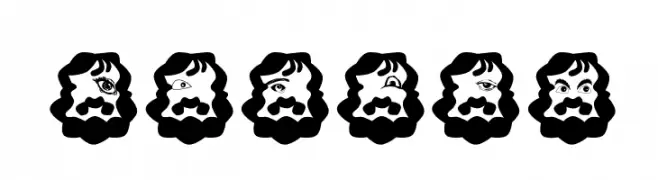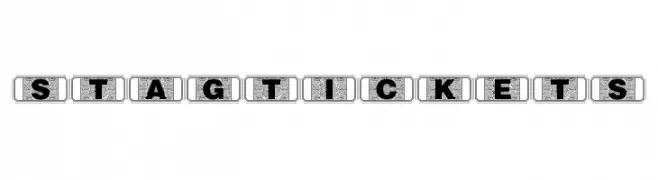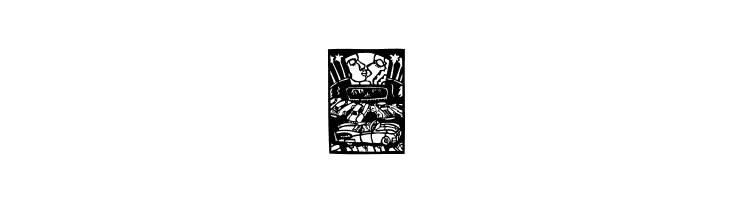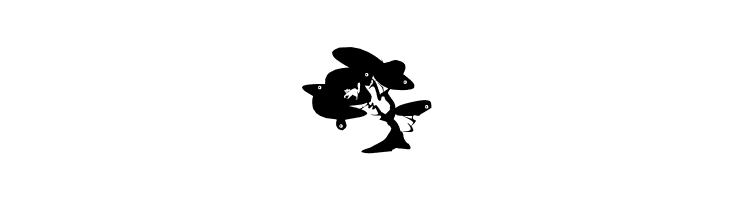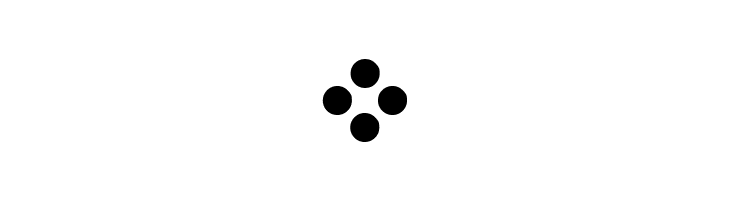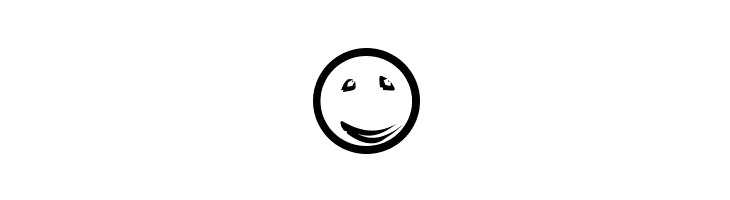
A decorative dingbat font featuring insect and bug silhouettes.
Dynamic swirling ovals with high contrast for a bold, artistic look.
Woodcut-style pictorial dingbat font with detailed illustrations.
Whimsical pictorial dingbats with storybook and fantasy themes.
Illustrative dingbat font with art and artist-themed icons.
A collection of decorative geometric and abstract symbols.
A decorative set of characters resembling stylized faces within cloud-like borders.
A decorative font with each character as a unique face illustration.
A decorative, vintage-style font with characters enclosed in ticket-like borders.